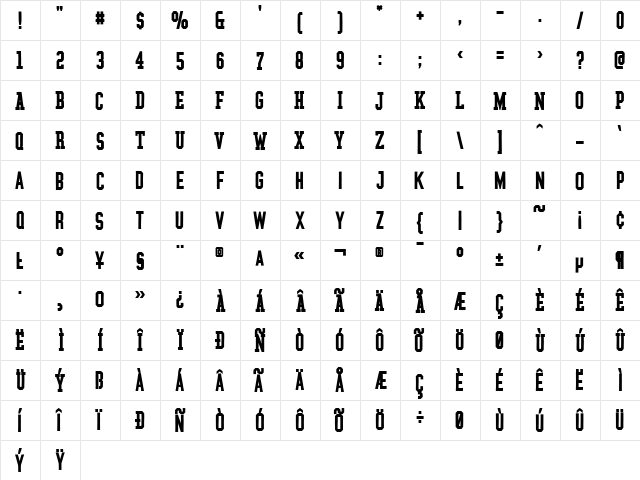
Graphium Bold
| Foundry | YouWorkForThem |
| Designer | Michael Cina |
Design Context for Graphium Typeface
Graphium is a composed and adaptable typeface that performs quietly and consistently across a wide range of design contexts. Its bold stroke weight gives it real presence on the page.
Pro Tip: Use Graphium in both headline and body roles to test its range before committing to a single application.